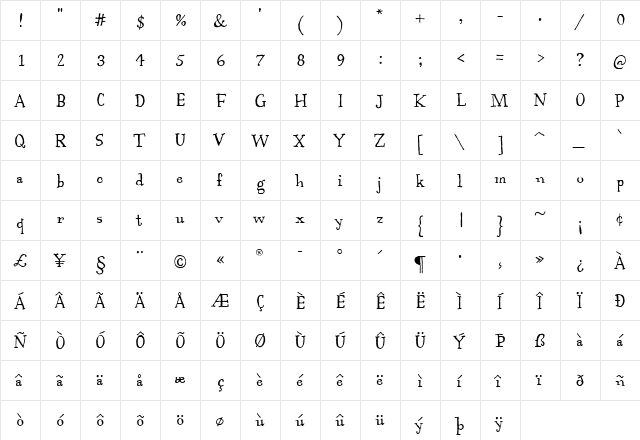
AuntMildred Regular
| Foundry | Copr. Akemi Aoki/MvB Design |
Design Context for AuntMildred Typeface
AuntMildred takes a measured approach to typography — its balanced proportions and neutral character make it a reliable workhorse for both digital and print work.